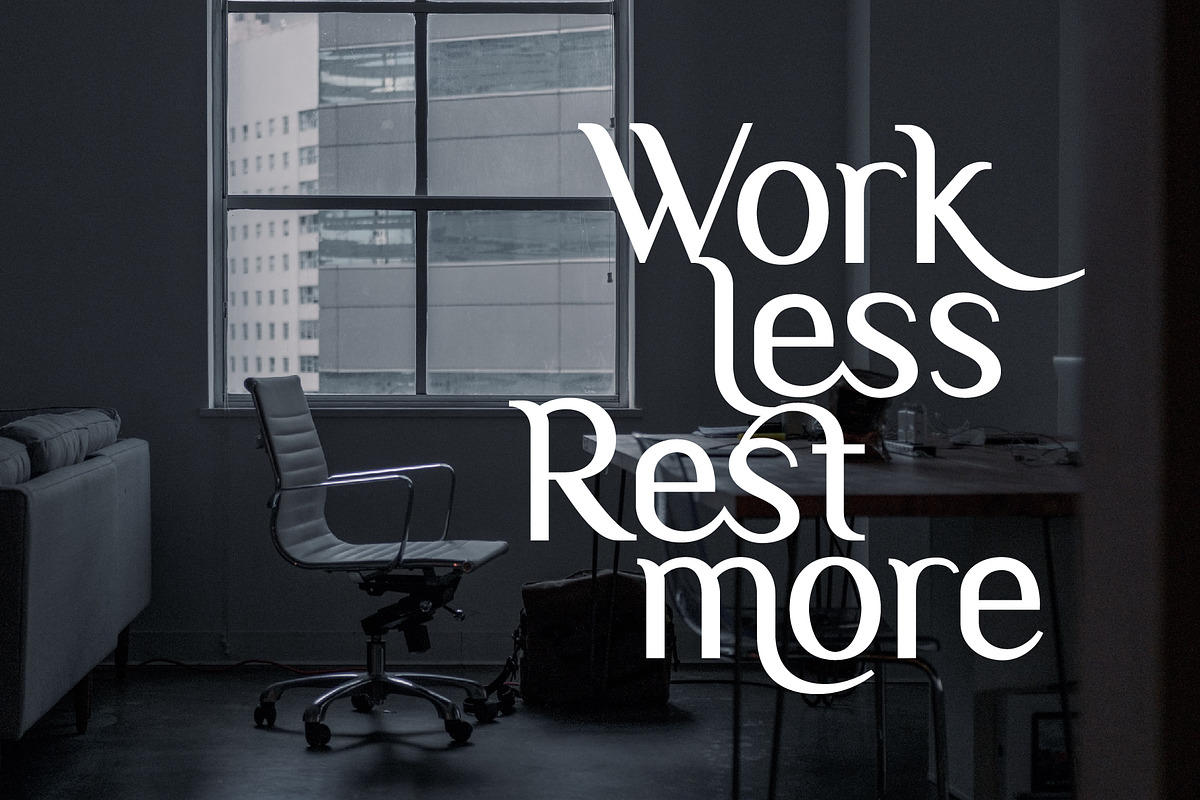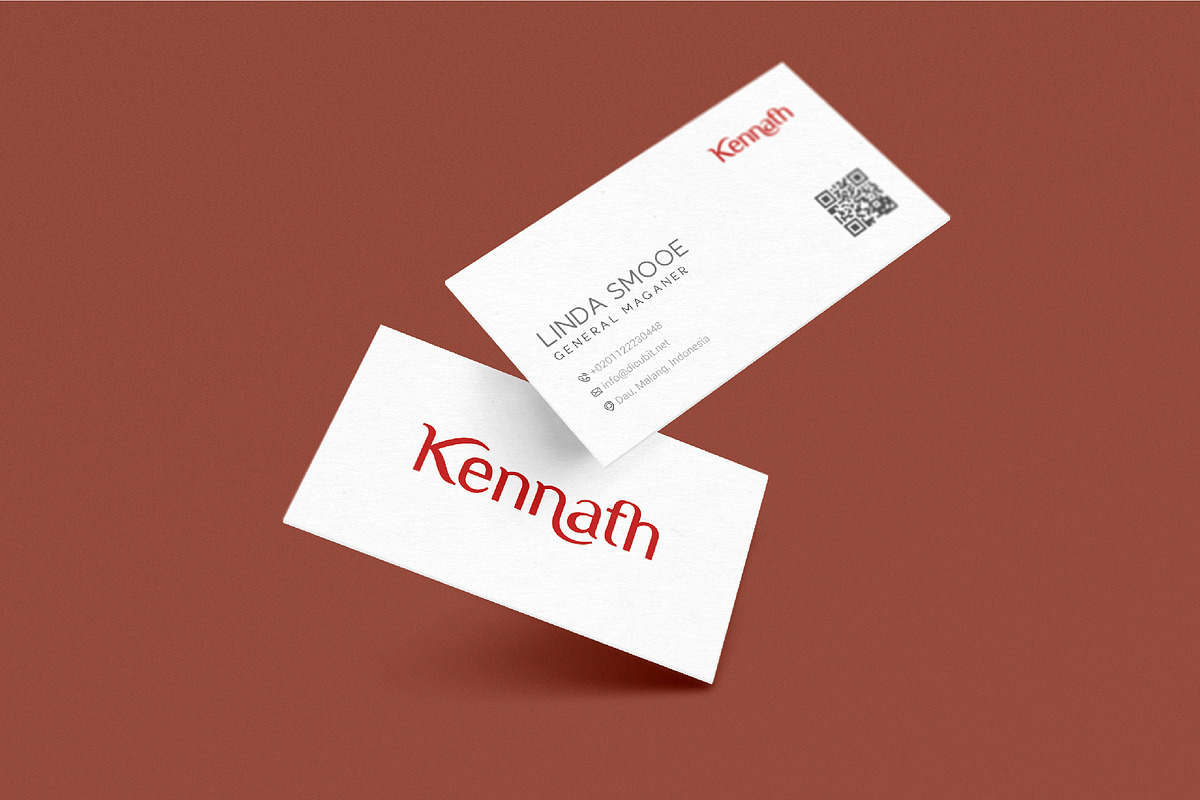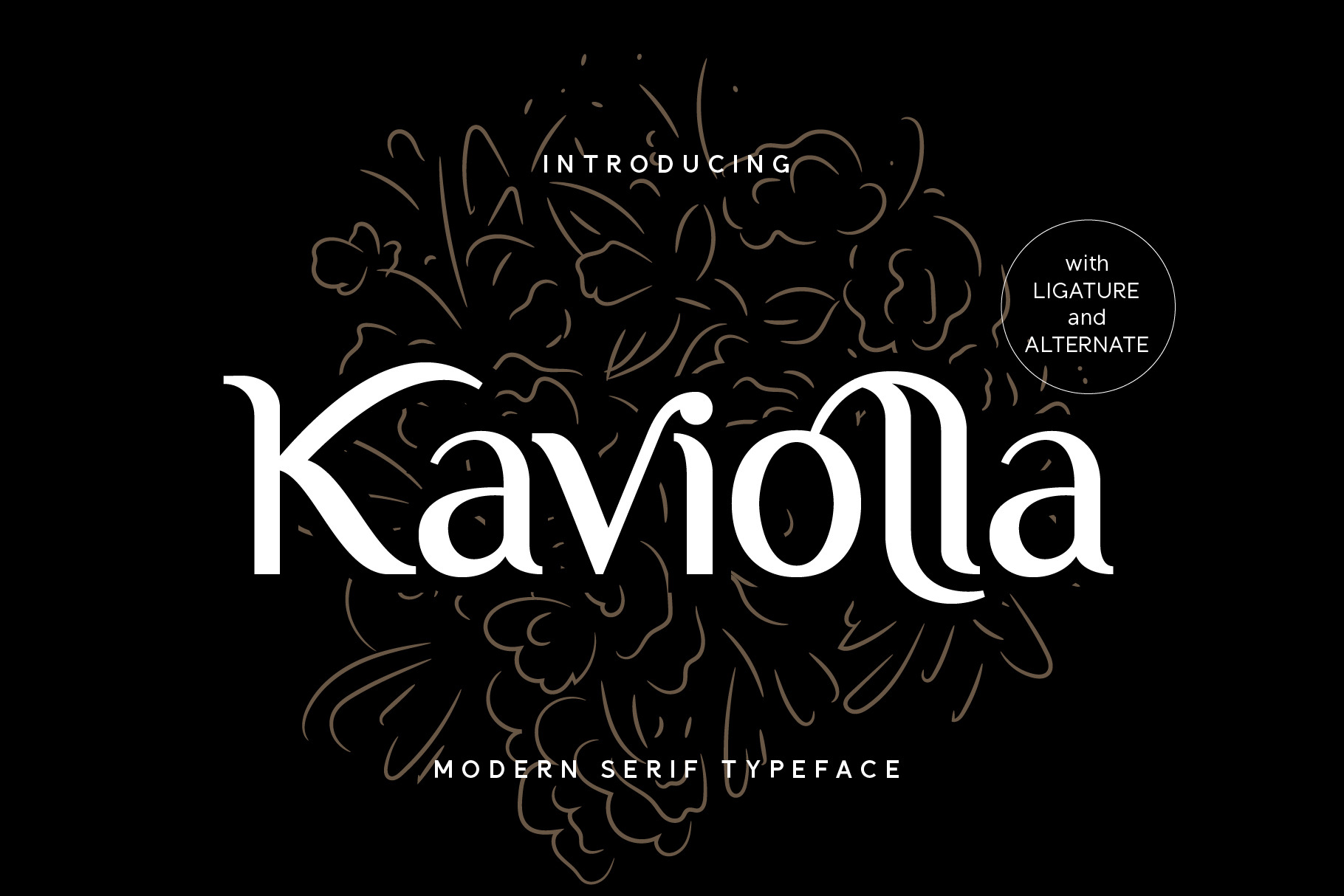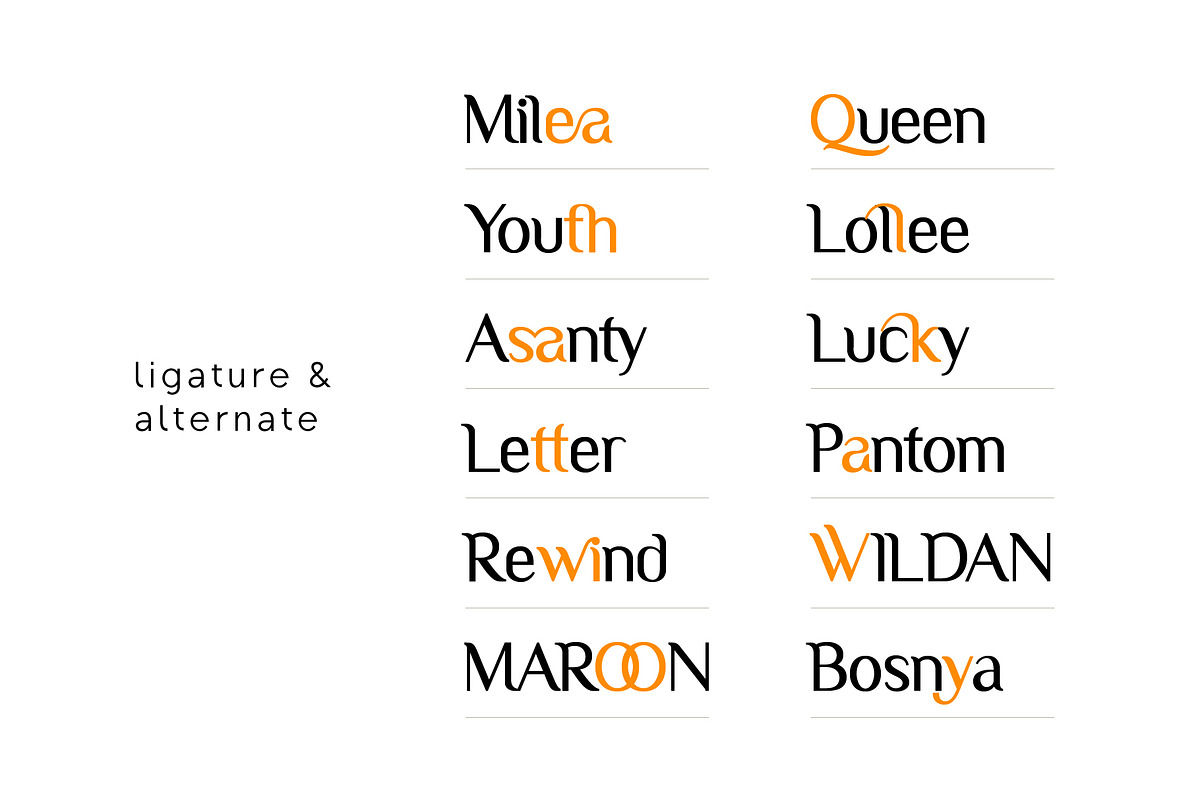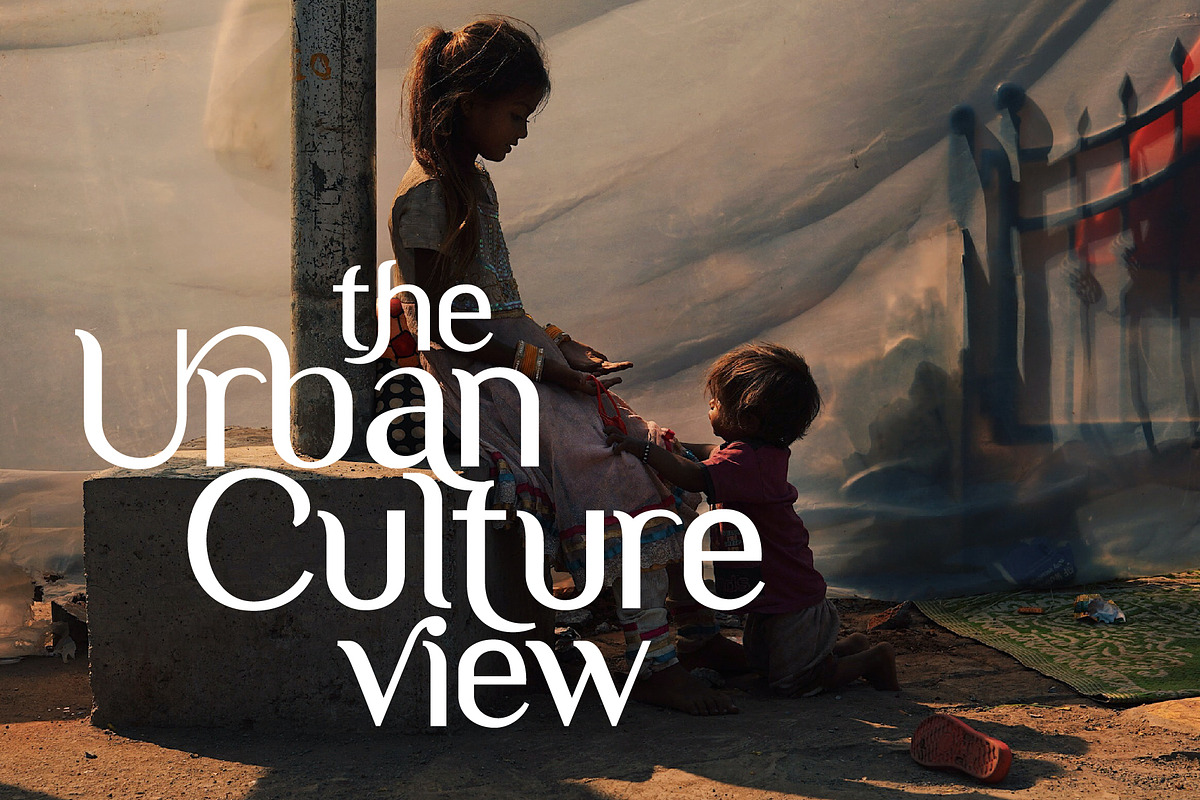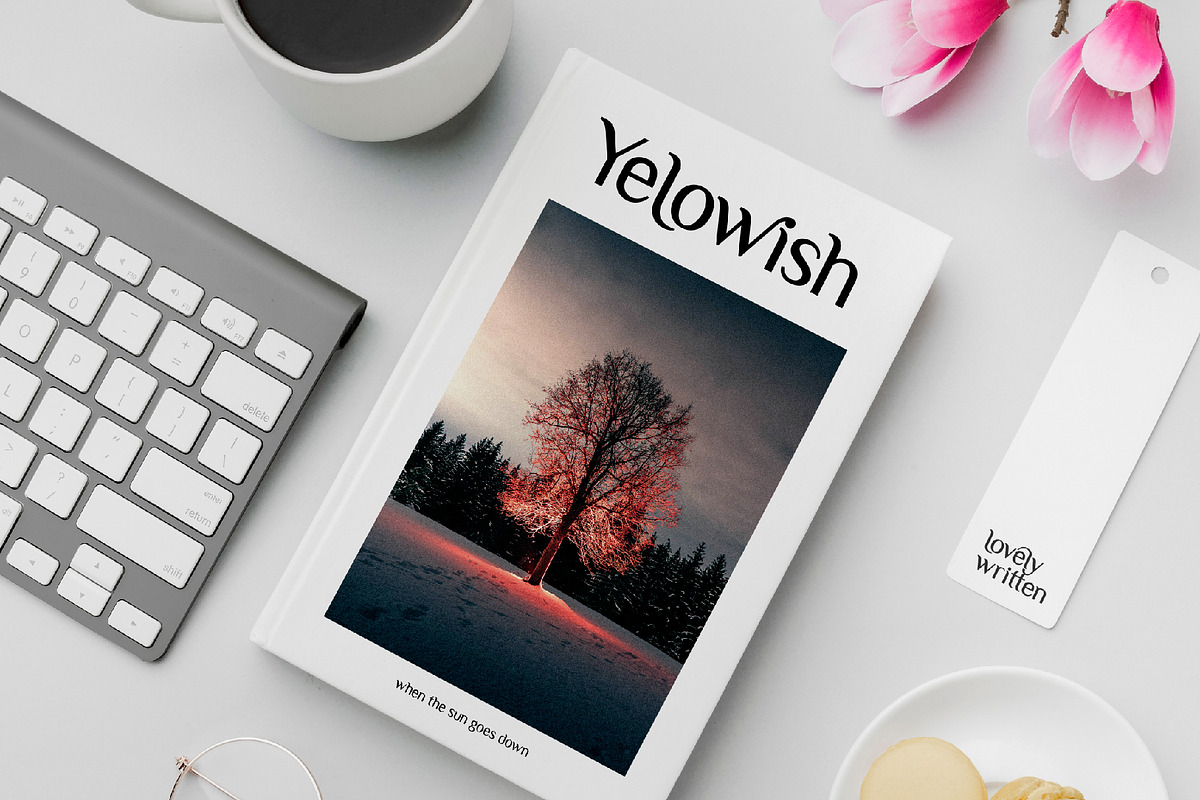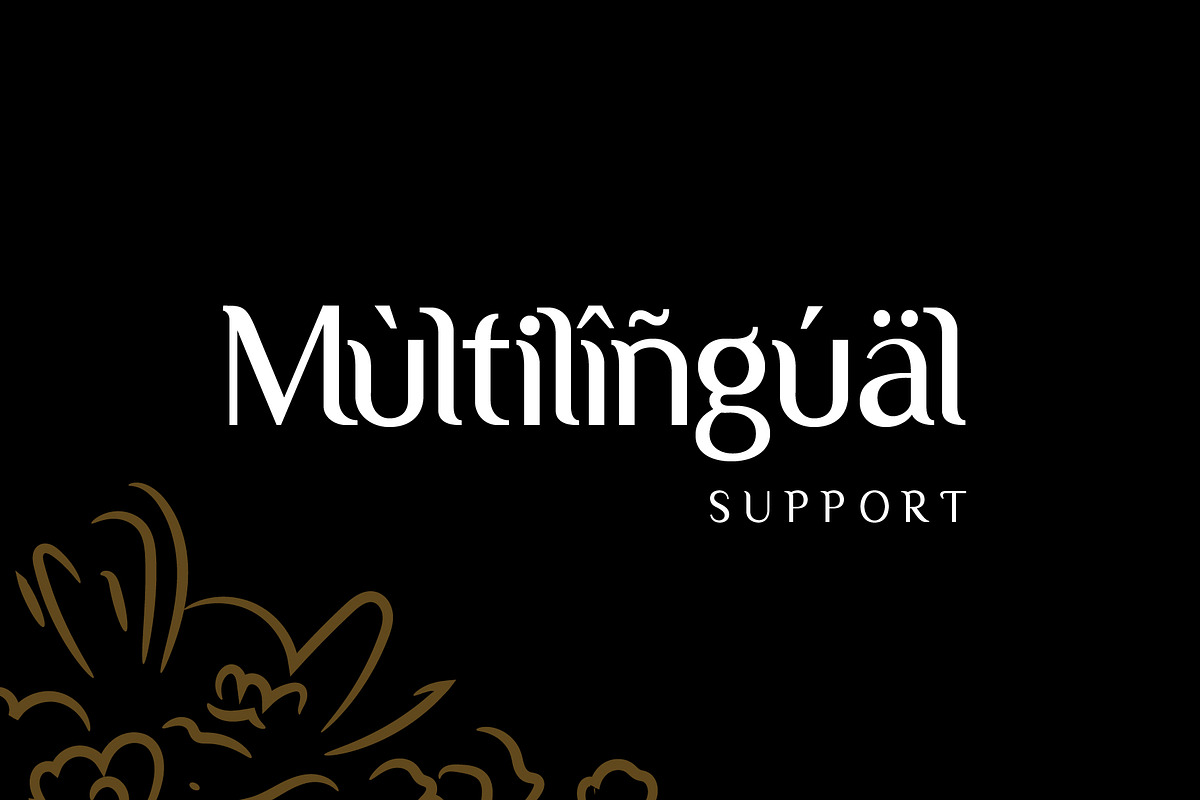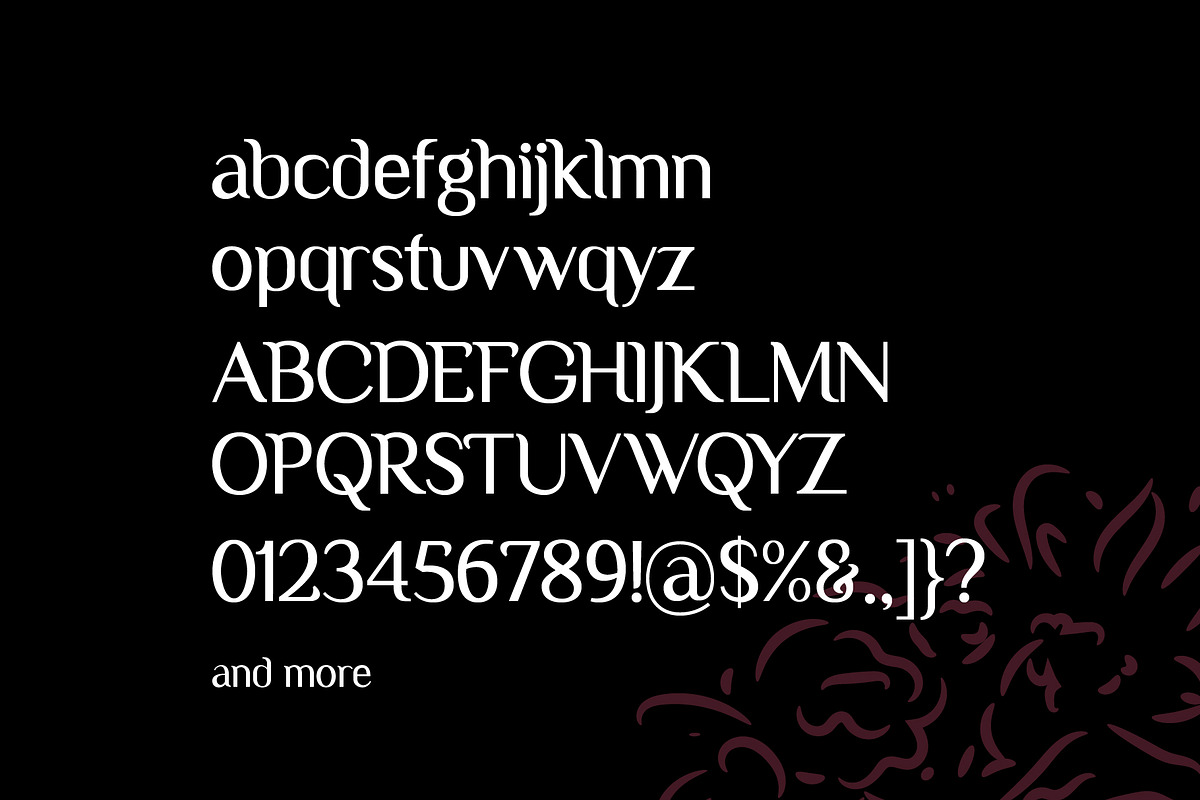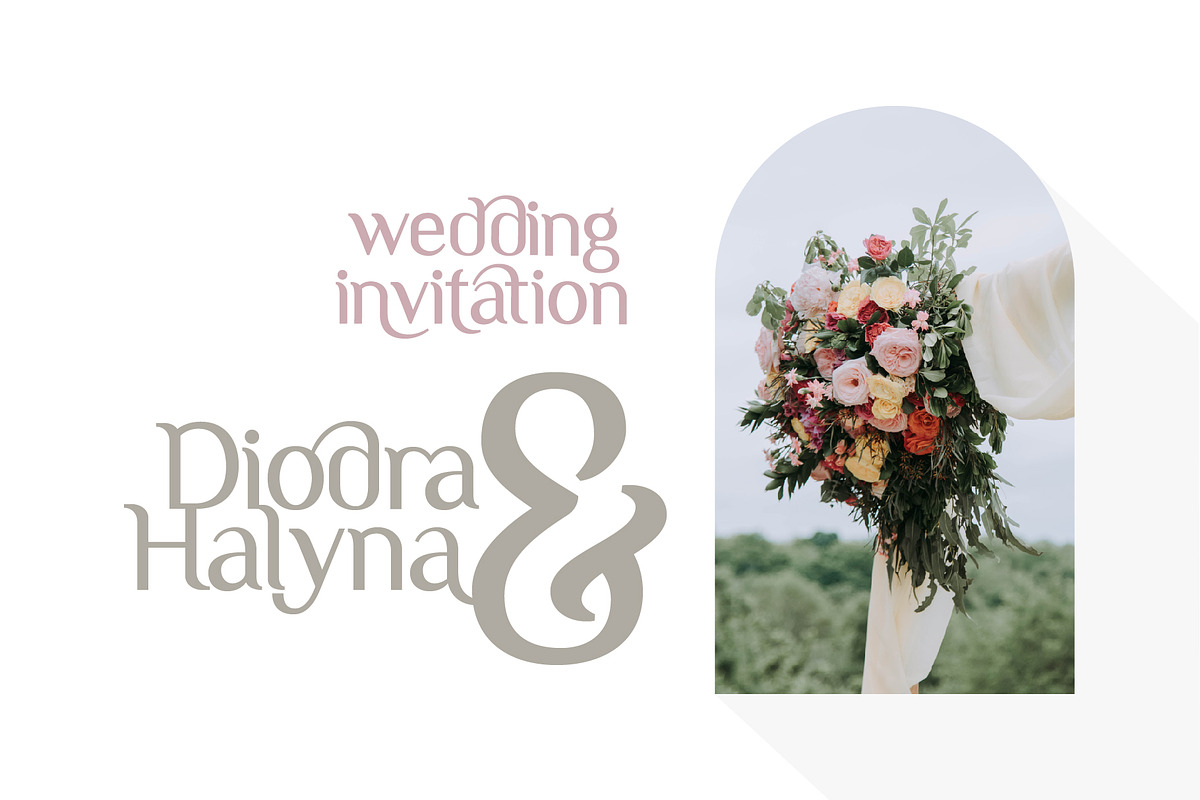
Kaviolla Modern Serif Font
Kaviolla is a modern serif typeface/font designed with carefully handcrafted. This perfectly made to be applied in logo or branding, stationery, books, packaging, fashion, magazines, t-shirt, novels, labels and many advertising purposes.
Features: Uppercase, Lowercase, Number, Punctuation, Symbol, Multilingual, Ligature, Alternate.